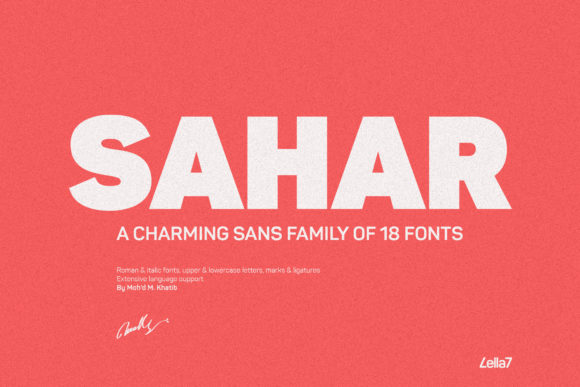
Looking for the best font for your Latin tattoo? Look no further than Sahar Font! This powerful and dynamic sans-serif font is the perfect choice for anyone looking to make a statement with their body art.
Created by the talented designer Lella7, Sahar Font is inspired by the designer's wife's name and the Arabic word for charm. This inspiration is evident in the font's charming, uncompromising style, which is characterized by controlled letterforms and modern touches.
But Sahar Font isn't just charming - it's also authoritative and commanding. The balance of hard lines and smooth curves gives each weight of the family a sense of power that is sure to turn heads. And with each font in the family able to stand on its own, Sahar Font offers a versatility that is hard to beat.
So why settle for a bland or generic font for your tattoo when you can choose Sahar Font? With its unique blend of power, charm, and modern style, it's the perfect way to elevate your body art to the next level.